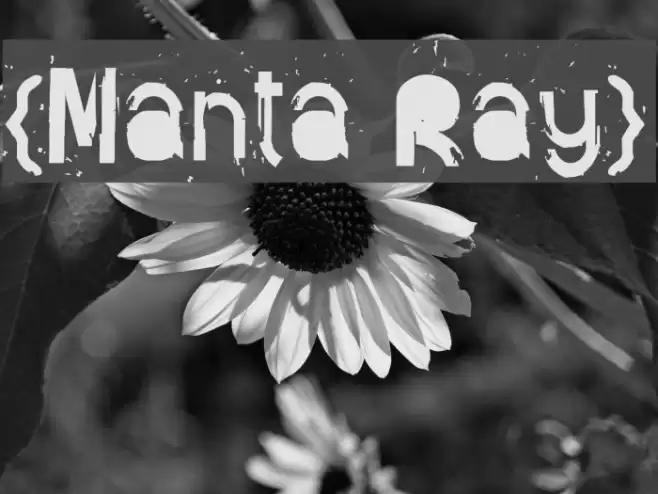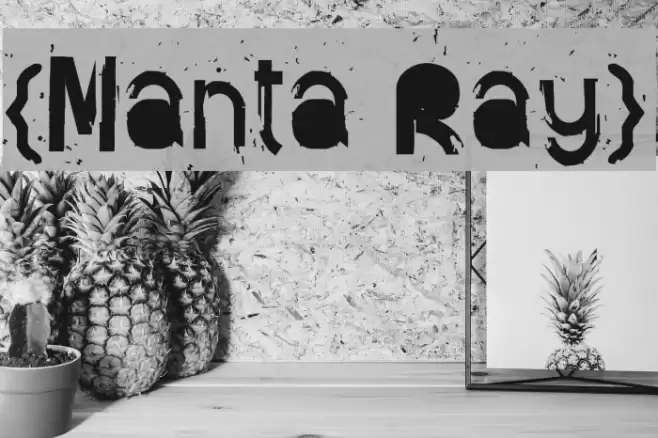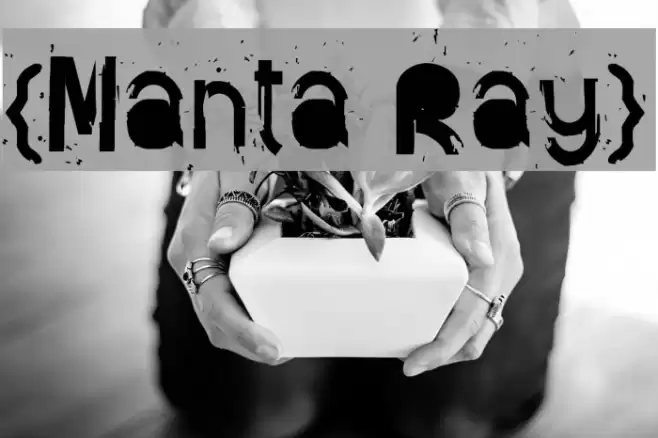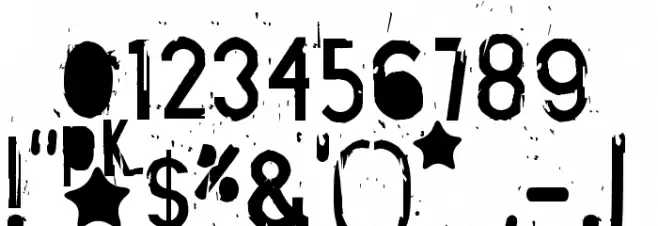
{Manta Ray} Font
{Manta Ray} Description
This font exhibits a distressed, grunge style with a bold and impactful appearance. The characters are designed with irregular edges and a textured look, giving them a worn and rugged feel. The uppercase and lowercase letters maintain a consistent height, while the numerals and special characters follow the same distressed aesthetic. This font is ideal for projects that require a raw, edgy look, such as music album covers, posters, or any design that aims to convey a sense of rebellion or nonconformity.
A bold, distressed font with a grunge aesthetic, perfect for edgy designs from Uncategorized fonts.
- Proposed Projects: Album covers, posters, urban-themed designs, rebellious branding.
- Overall Style: Grunge, Edgy, Distressed